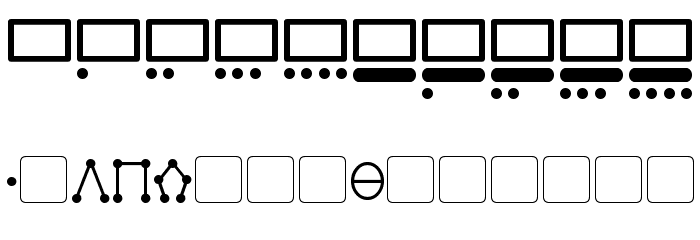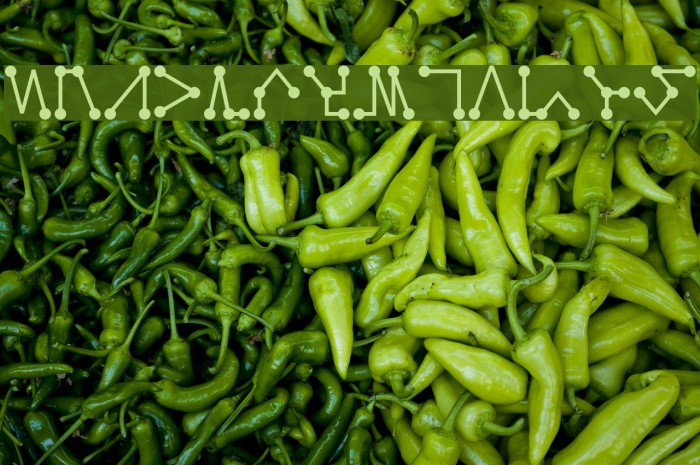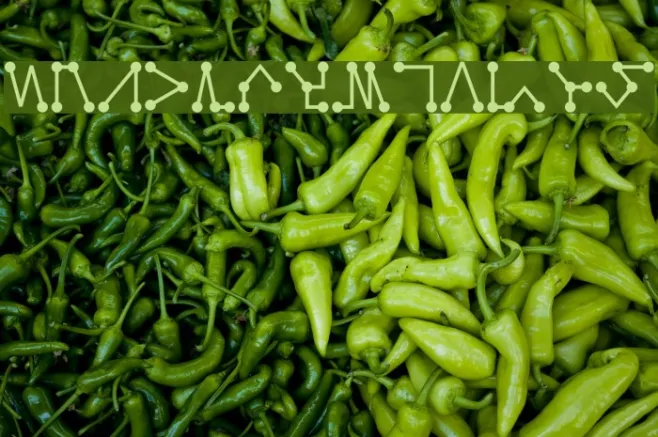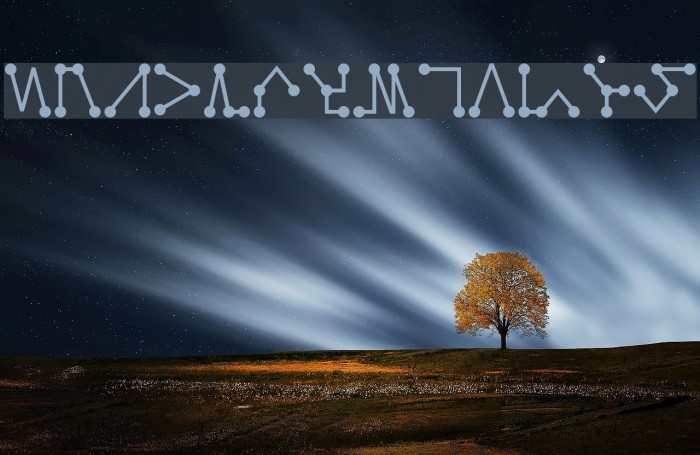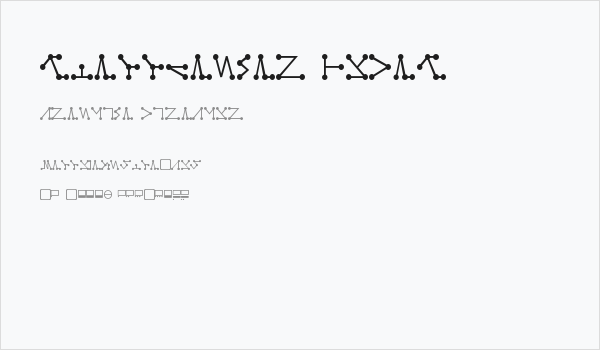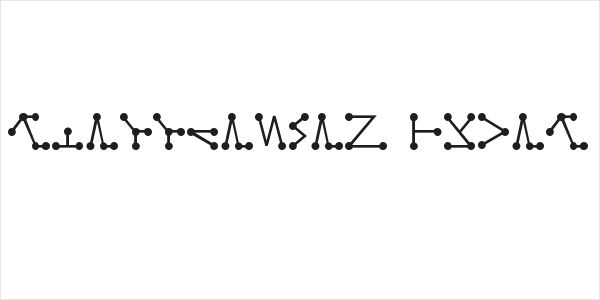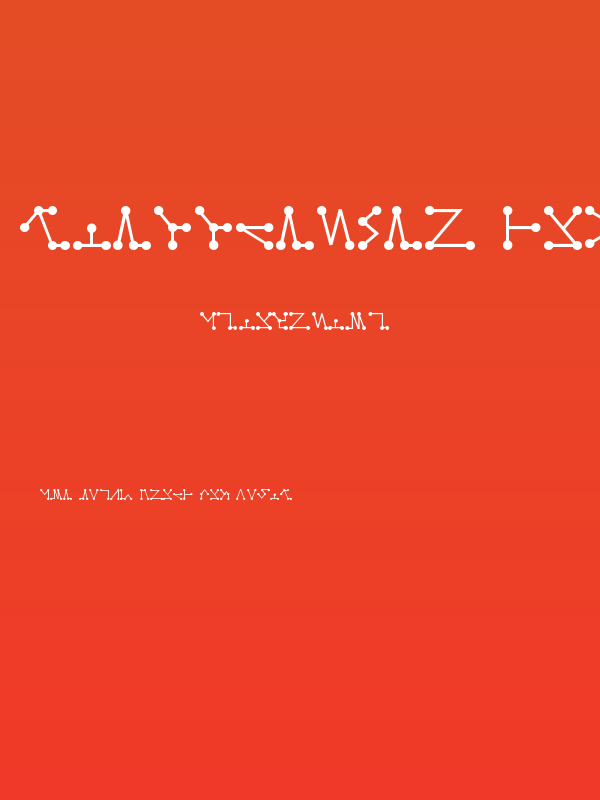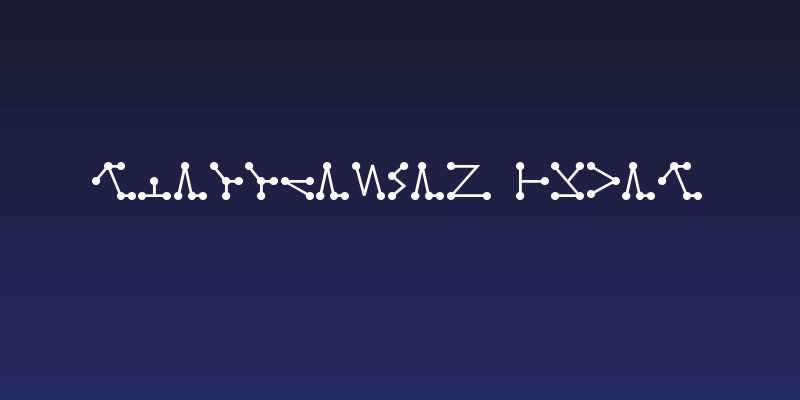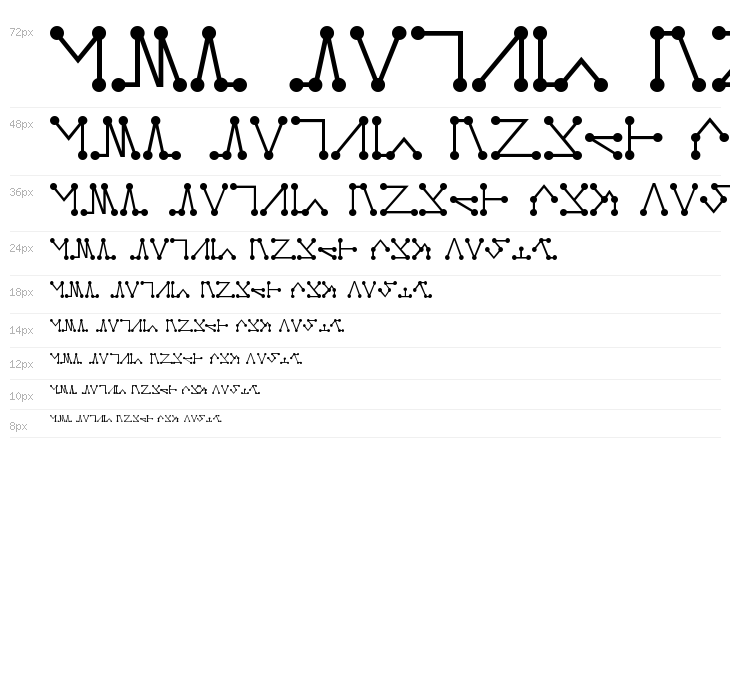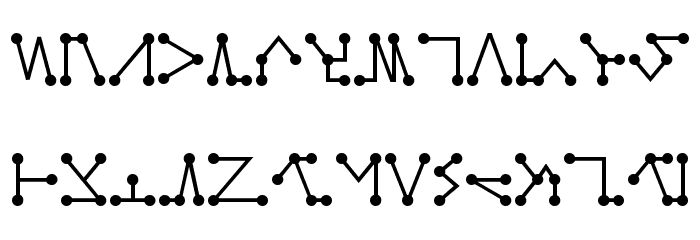
Spellweaver Nodes Font
Spellweaver Nodes Description
This font features a unique and abstract design, reminiscent of constellations or network diagrams. Each character is composed of lines and dots, creating a sense of connection and flow. The style is highly decorative, with a modern and futuristic feel. The characters are distinct and easily recognizable, yet they maintain a cohesive aesthetic throughout the set. The font includes both uppercase and lowercase letters, numbers, and a selection of special characters, all adhering to the same visual theme. The use of dots and lines gives it a geometric and technical appearance, making it suitable for projects that require a modern and innovative look.
| Use Case | Logos, Posters, Creative Artwork |
| Proposed Projects | Ideal for sci-fi themed designs, tech branding, futuristic posters, and creative digital artwork. |